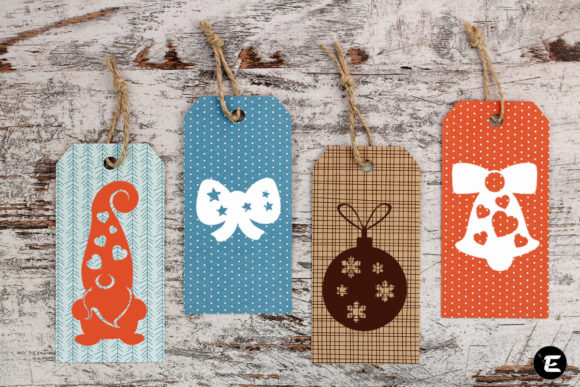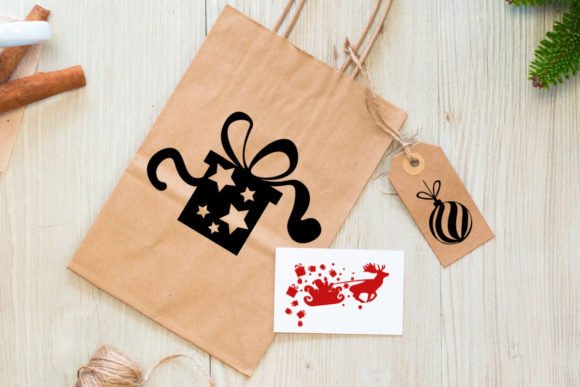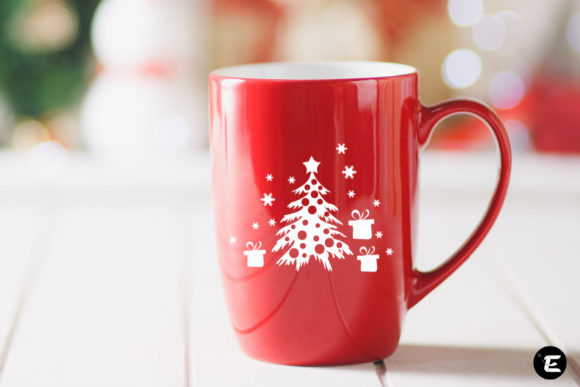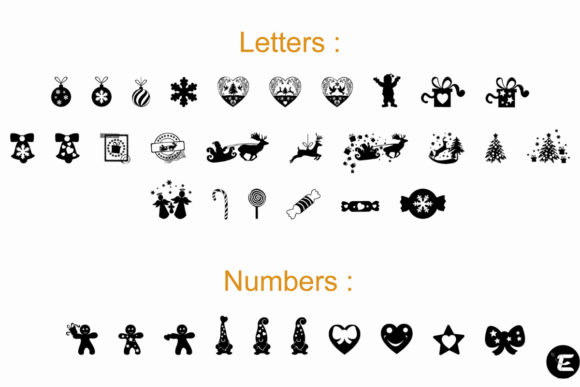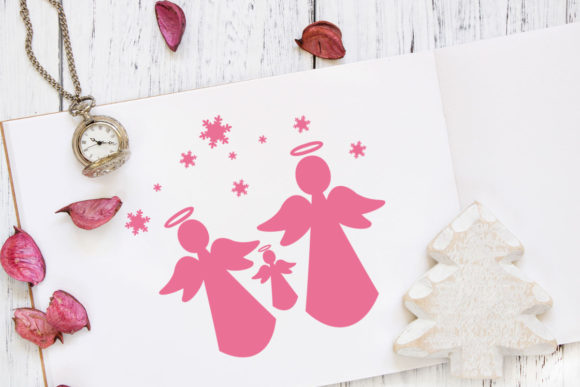
Christmas Font
“Christmas” is a delightful and festive dingbats font that embodies the spirit of the holiday season. With its charming and whimsical symbols, this font adds a touch of sweetness and warmth to your creative projects. Whether you’re working on crafts, digital designs, presentations, or making greeting cards, “Christmas” has the potential to become your go-to font for any occasion.
The symbols in “Christmas” are carefully crafted to evoke the joy and magic of the holiday season. From Santa Claus and reindeer to snowflakes and Christmas trees, each character captures the essence of Christmas with its playful and festive design. Using this font, you can infuse your projects with the spirit of the season and create a delightful atmosphere.
In crafting, “Christmas” is a perfect companion. Whether you’re making handmade cards, gift tags, ornaments, or any other festive crafts, this font allows you to incorporate charming Christmas symbols effortlessly. The symbols can be used as decorative elements, borders, or even as standalone designs, giving your creations a whimsical and personalized touch.
Digital designs also come to life with the help of “Christmas.” Whether you’re designing digital greetings, social media posts, or digital invitations, this font adds a touch of festive cheer. Use the symbols to create visually appealing compositions or as decorative accents that enhance the overall design. Your digital creations will capture the attention and spread the holiday spirit.
Presentations during the holiday season can benefit from the charm of “Christmas.” Whether you’re preparing slides for a corporate event, a school project, or a community gathering, this font allows you to incorporate festive elements that engage your audience and create a joyful atmosphere. From themed headers to decorative dividers, “Christmas” brings a touch of merriment to your presentations.
Making greeting cards becomes an enjoyable and creative process with “Christmas.” Whether you’re designing cards for friends, family, or business associates, this font offers a wide range of symbols to convey the holiday spirit. From traditional symbols like Christmas stockings and bells to unique designs like candy canes and presents, “Christmas” allows you to customize your cards and make them truly special.
No matter the occasion, “Christmas” has the potential to become your favorite go-to font for adding a festive and warm touch to your creative projects. Its delightful symbols and charming design capture the essence of the holiday season and bring joy to everything you create. Embrace the spirit of Christmas and let “Christmas” be your companion for crafting, digital design, presentations, and greeting card making.
With “Christmas,” every project becomes a celebration of the season. So, let your creativity shine and use this sweet and festive dingbats font to create memorable designs that spread joy and cheer.